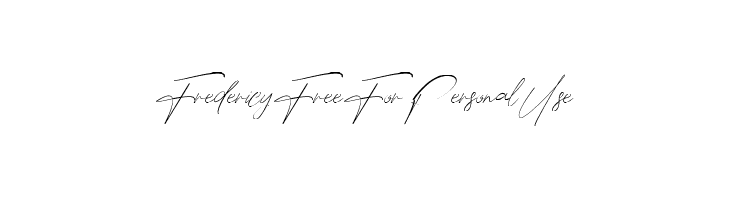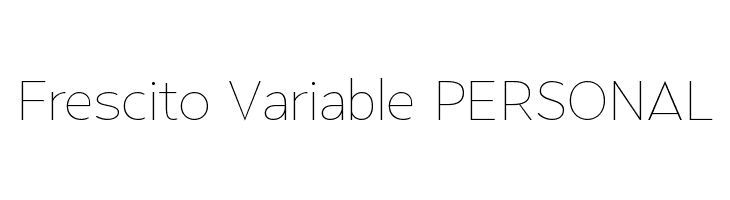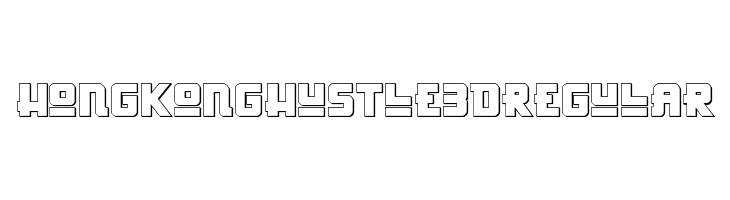
A cursive, handwritten font with elegant, flowing strokes.
A bold, expressive script font with dynamic, calligraphic strokes.
A playful, casual handwritten font with smooth, flowing curves.
A bold, modern font with a shadow effect created by horizontal lines.
A bold, geometric font with a striped, futuristic design.
An elegant and flowing script font with intricate loops and swashes.
An ultra-thin, minimalist font with a modern and sleek design.
A dynamic and playful script font with a handwritten style.
An elegant and flowing script font with graceful curves and dynamic strokes.
An elegant script font with flowing, interconnected letters and artistic swashes.